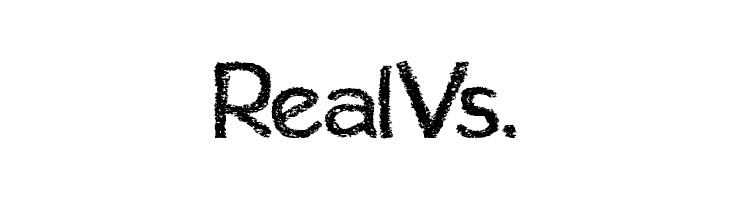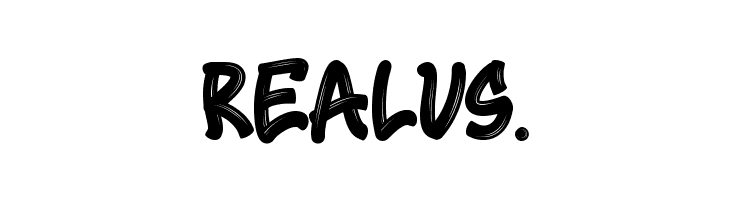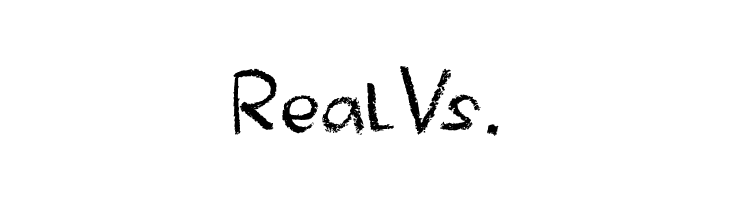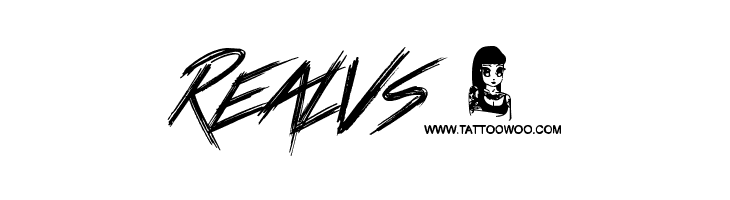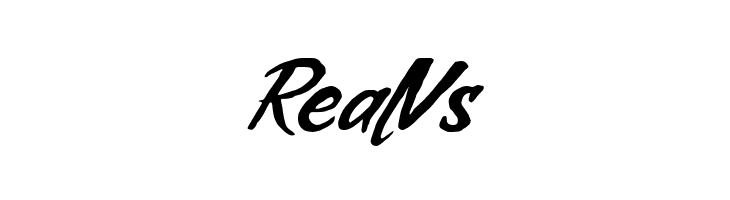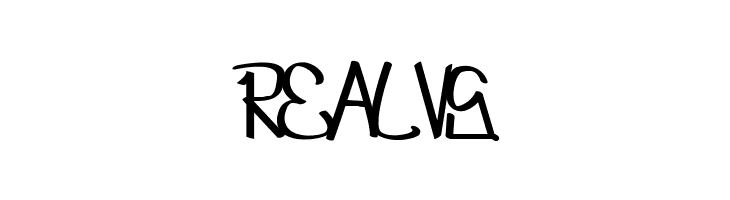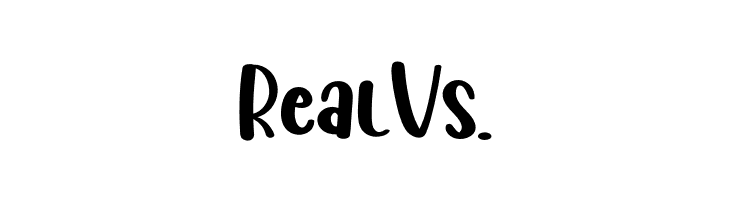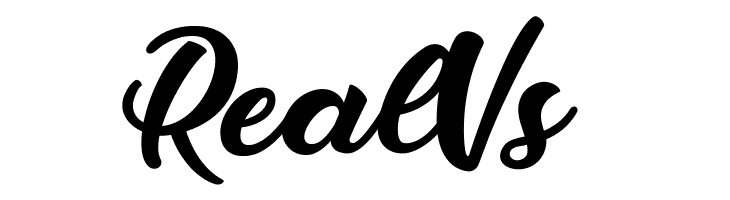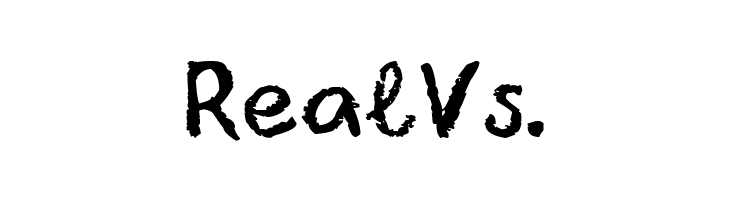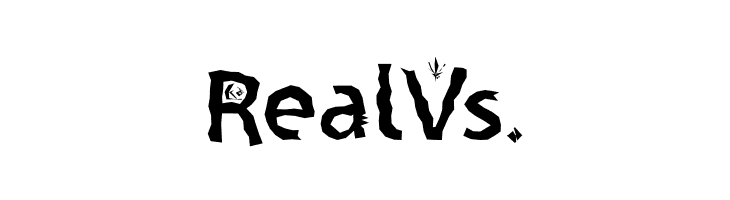
A playful, bold handwritten font with rounded strokes and a casual feel.
A playful, hand-drawn font with a crayon-like appearance.
A playful, hand-drawn style with a crayon-like texture.
A playful, hand-drawn font with bold characters enclosed in square frames.
A playful, crayon-like font with a hand-drawn, textured appearance.
A bold, 3D font with shadow effects and geometric design.
A playful, crayon-like font with a textured, hand-drawn appearance.
A playful, textured font resembling crayon or chalk writing.
A bold, graffiti-inspired font with a playful and energetic style.
A pixelated, blocky font with a retro digital aesthetic.
A bold, playful font with a brush-like, hand-drawn style.
A bold, playful font with a quirky, cartoon-like style.
A playful, bold outline font with a whimsical, cartoonish style.
A bold, playful font with a shadow effect and cartoonish style.
A bold, expressive script font with flowing, cursive letterforms.
A bold, playful font with rounded, whimsical characters.
A dynamic, brush-style font with bold, angular strokes.
A playful, handwritten font with medium contrast and dynamic strokes.
A bold, slanted font with a modern and energetic style.
A bold, edgy font with sharp, angular lines and a rebellious aesthetic.
A bold, angular font with a rebellious, dynamic style.
A playful, hand-drawn font with bold, irregular outlines and quirky details.
A bold, brush-style font with dynamic and expressive strokes.
A bold, futuristic font with a robotic, geometric style and rounded corners.
A bold, textured font with a distressed, hand-drawn style.
A playful, cartoonish font with expressive faces for each character.
A bold, hand-drawn font with a dynamic and expressive brush-like texture.
A bold and dynamic script font with fluid, cursive letterforms.
An elegant serif font with a blend of classic and modern elements, featuring unique curves and flourishes.
A chaotic, decorative font with jagged edges and star-like bursts.
A playful and bold collection of numbers and symbols in circular shapes.